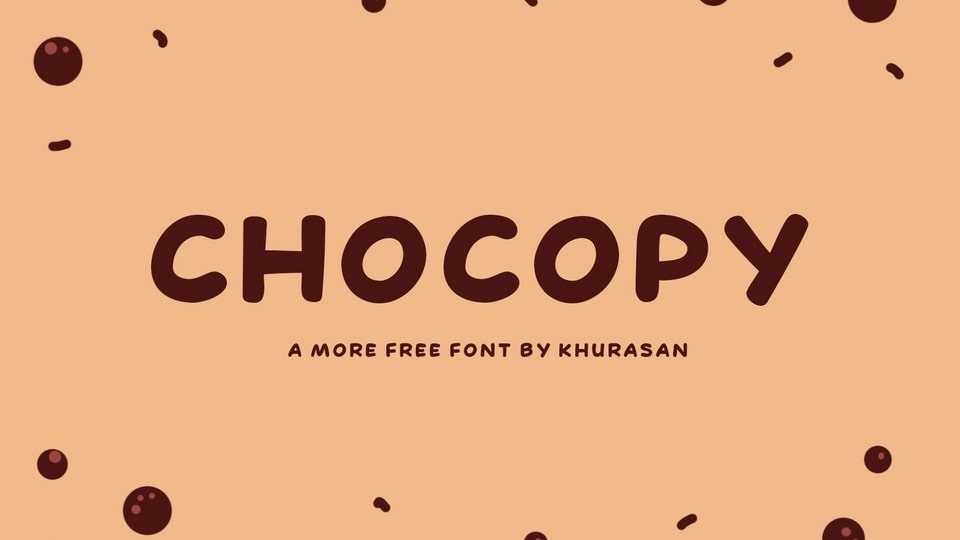
Download Chocopy font, a simple hand drawn typeface to bring a little sweetness and fun to your work. With its organic and natural look, Chocopy font is ready to make a big impression.